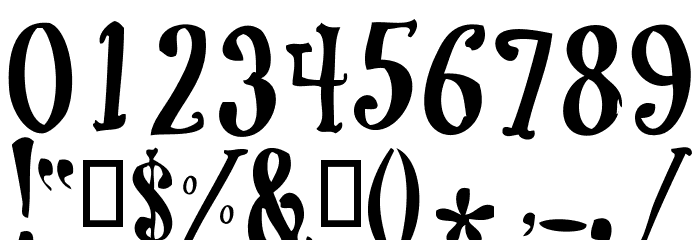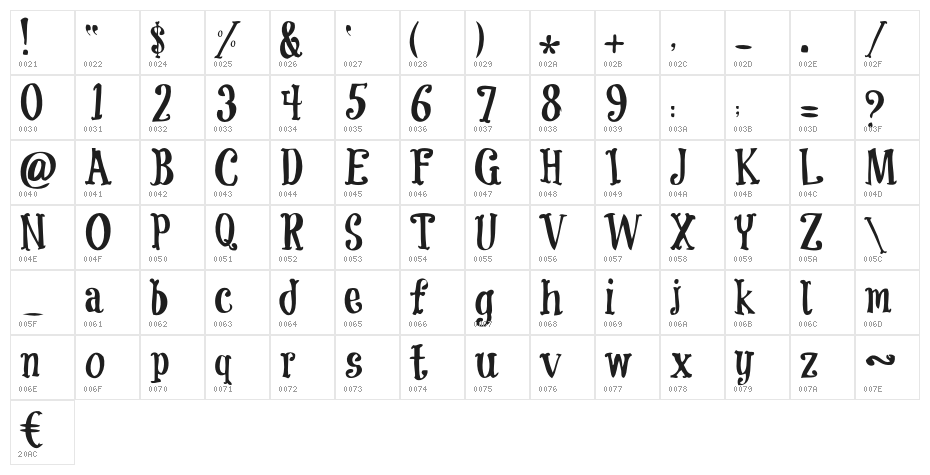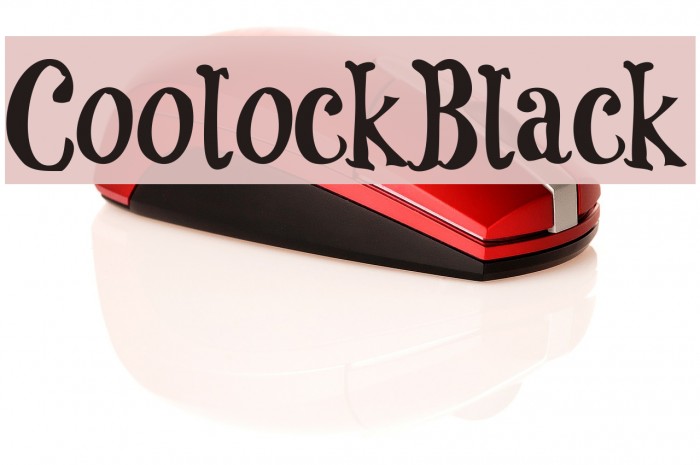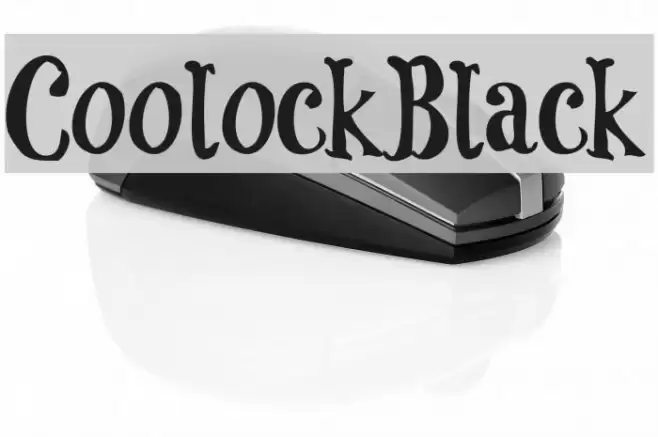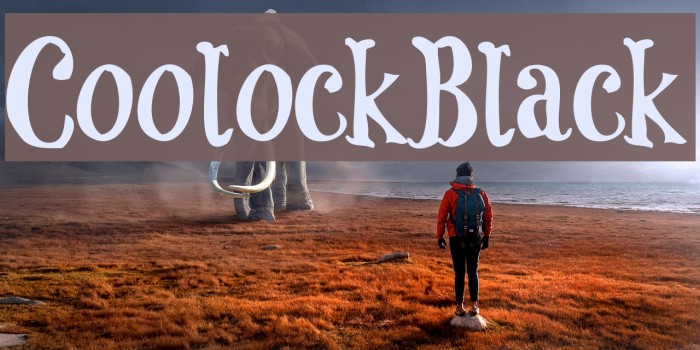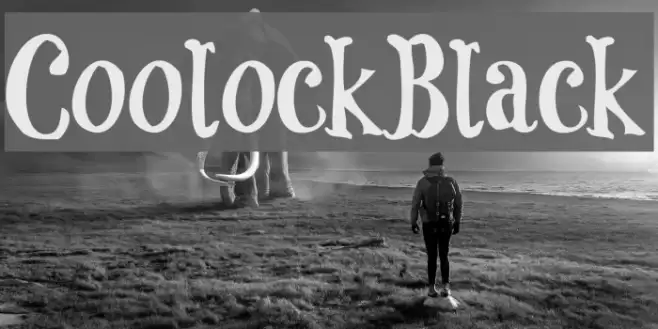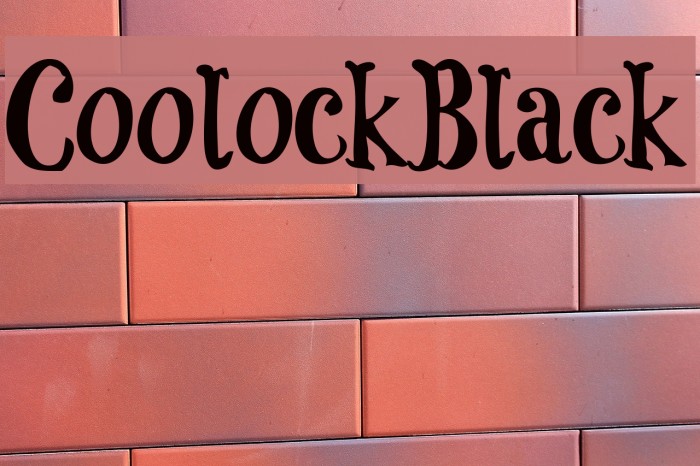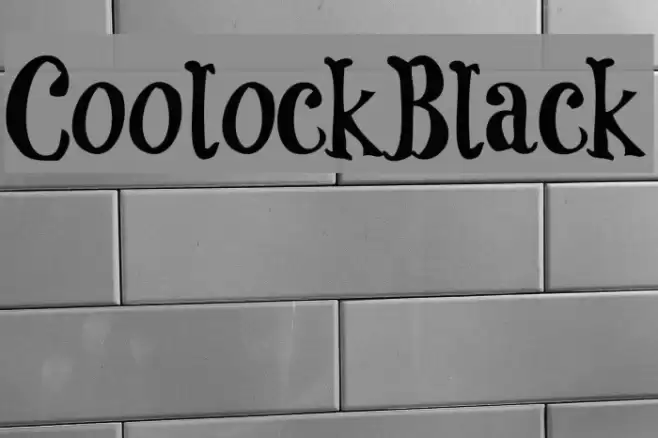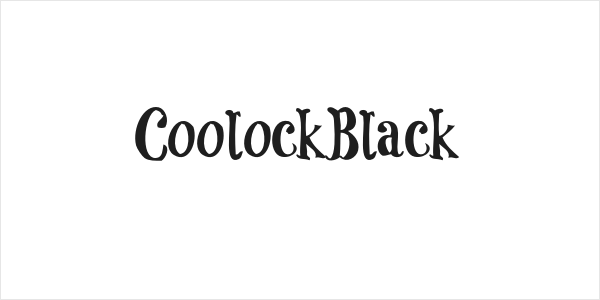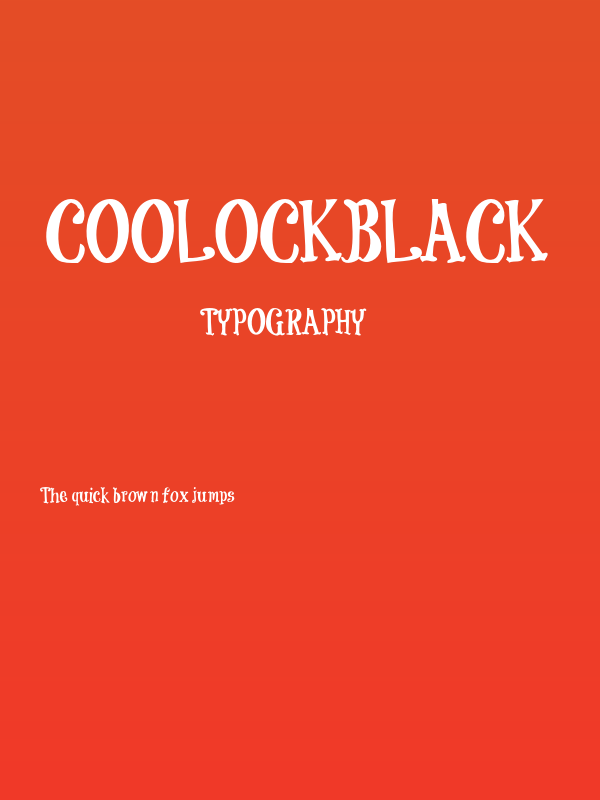
CoolockBlack Font
CoolockBlack Description
This font features a bold and playful design, characterized by its thick, uneven strokes and whimsical curves. The uppercase letters have a slightly exaggerated height, giving them a commanding presence, while the lowercase letters maintain a consistent style with rounded edges and a hand-drawn feel. The numbers are equally bold, with a quirky touch that adds to the overall playful aesthetic. Special characters are designed to match the font's unique style, making it suitable for creative and informal applications. The font's distinct personality makes it ideal for projects that require a touch of fun and creativity.
| Overall Style | Playful, Creative |
| Proposed Projects | Ideal for children's books, playful branding, posters, and creative invitations. |